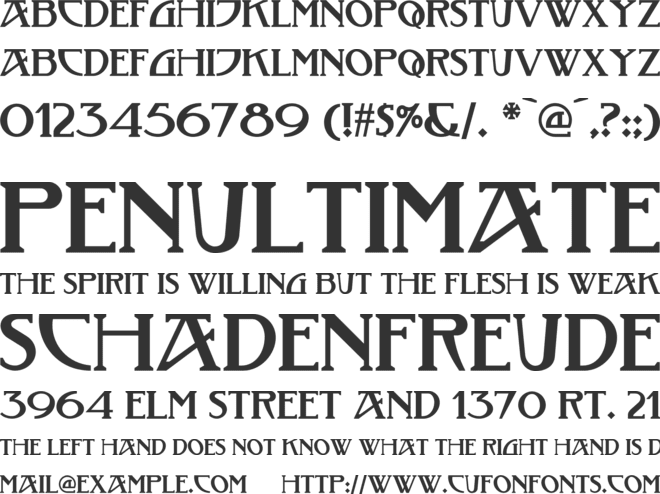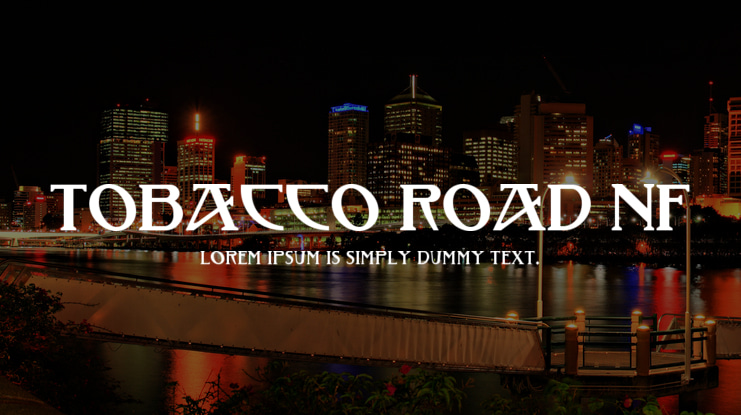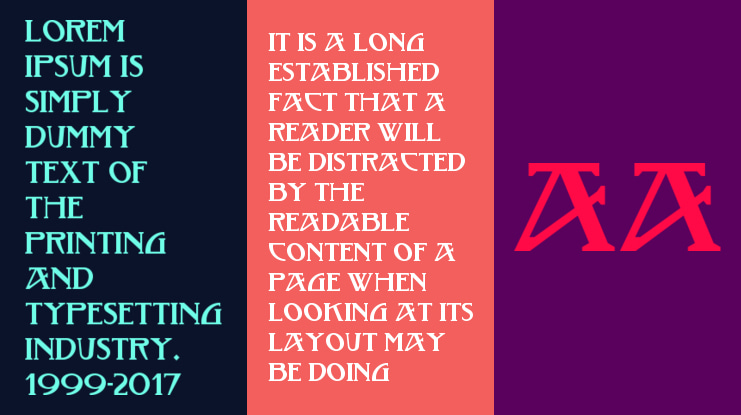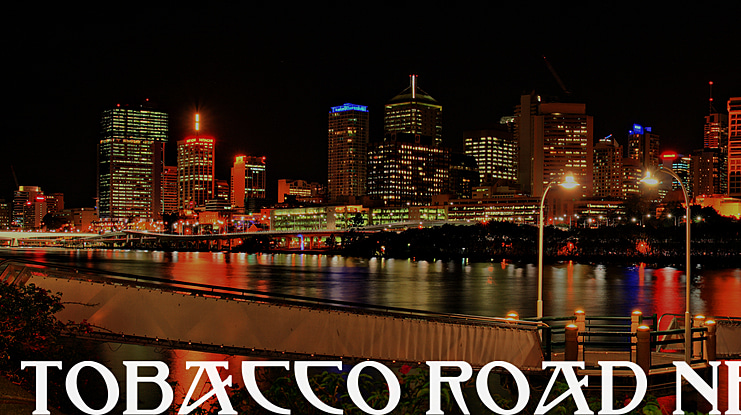
Tobacco Road NF Font
I discovered the inspiration for this font on a poster for an art exhibition, designed by Eva Volkel in 1912. Fairly typical of style of the Austrian Secession school, the font combines medieval forms with late Art Nouveau sensibilities.